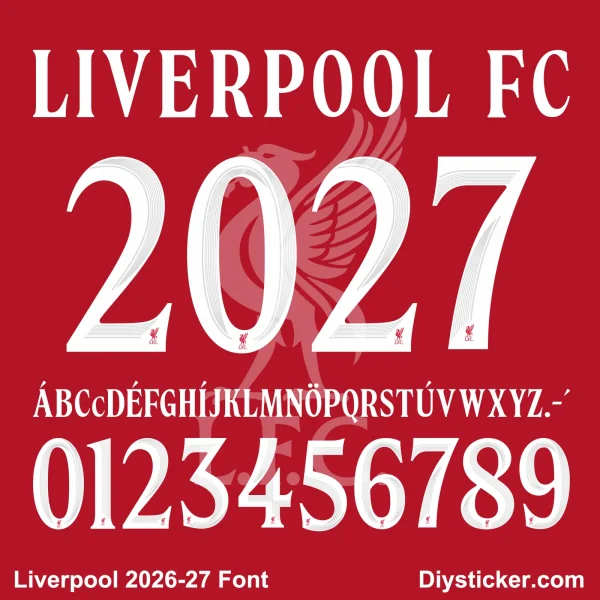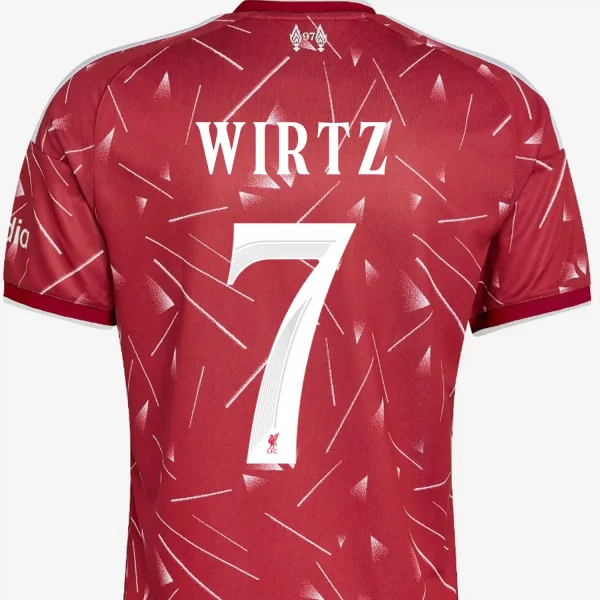
Are you looking to stay ahead of the curve for the upcoming football season? Welcome to the internet’s first exclusive release of the Liverpool 2026-2027 Font. Meticulously designed from official kit leaks and design blueprints, our custom-made typography package gives you everything you need to recreate, design, and print high-quality names and numbers for the newest LFC shirts.
Whether you are a graphic designer working on digital mockups, a content creator planning your next viral post, or a dedicated collector specializing in premium jersey restoration, this kit font offers unmatched accuracy. This is not just a generic cutout; it is a fully functional typography system built to match the unique curvature and clean styling of the historic club’s future look.
Perfect for DIY Jersey Restoration and Apparel Printing
Our custom-tailored curves match the 2026-27 design perfectly, down to the inner tracking details of individual letters and specific spacing rules for double-digit numbers like “77” or “22”.
Features and Complete Character Set Included
- A complete set of uppercase letters (A-Z) rendered in the official club aesthetic.
- Full numerical digits from 0 to 9 featuring the precision inner geometric lines.
- Special accents and diacritics (such as Á, Ö, Ú) to accurately spell out names like Szoboszlai, Núñez, or future international signings.
- Essential punctuation marks (hyphens, periods, apostrophes) for compound player names.